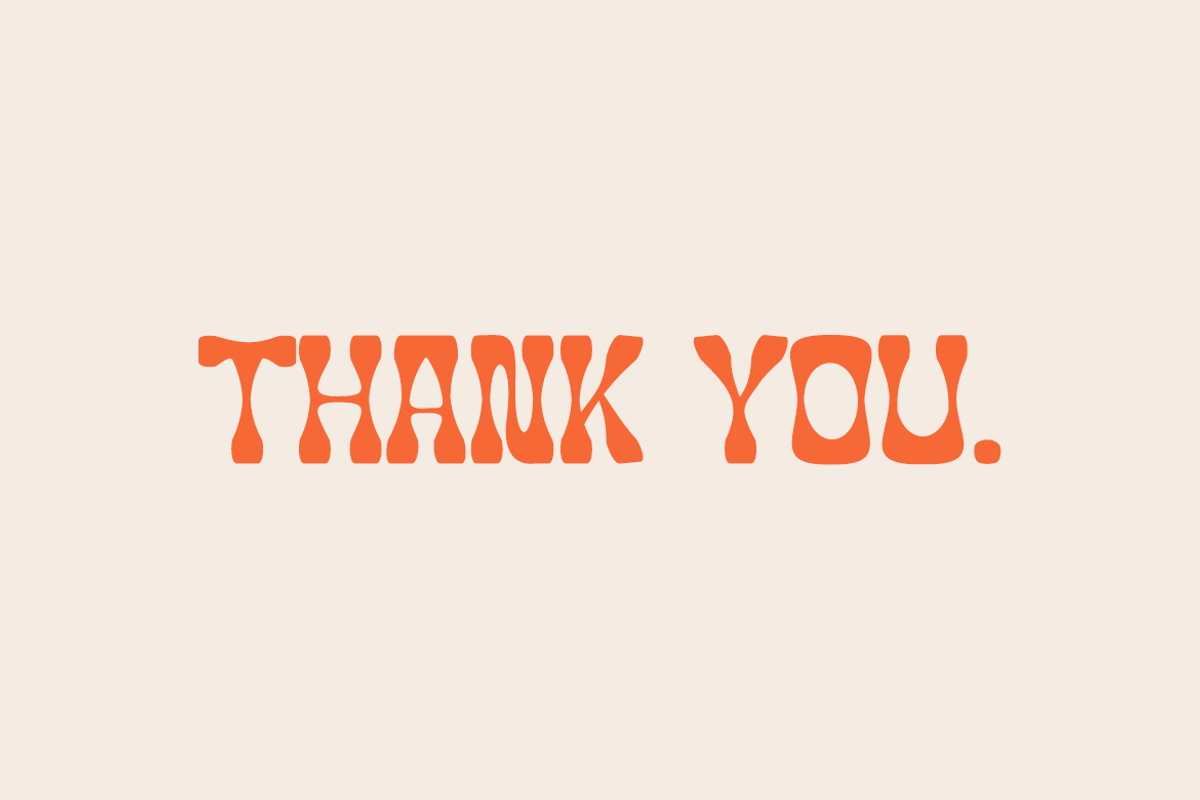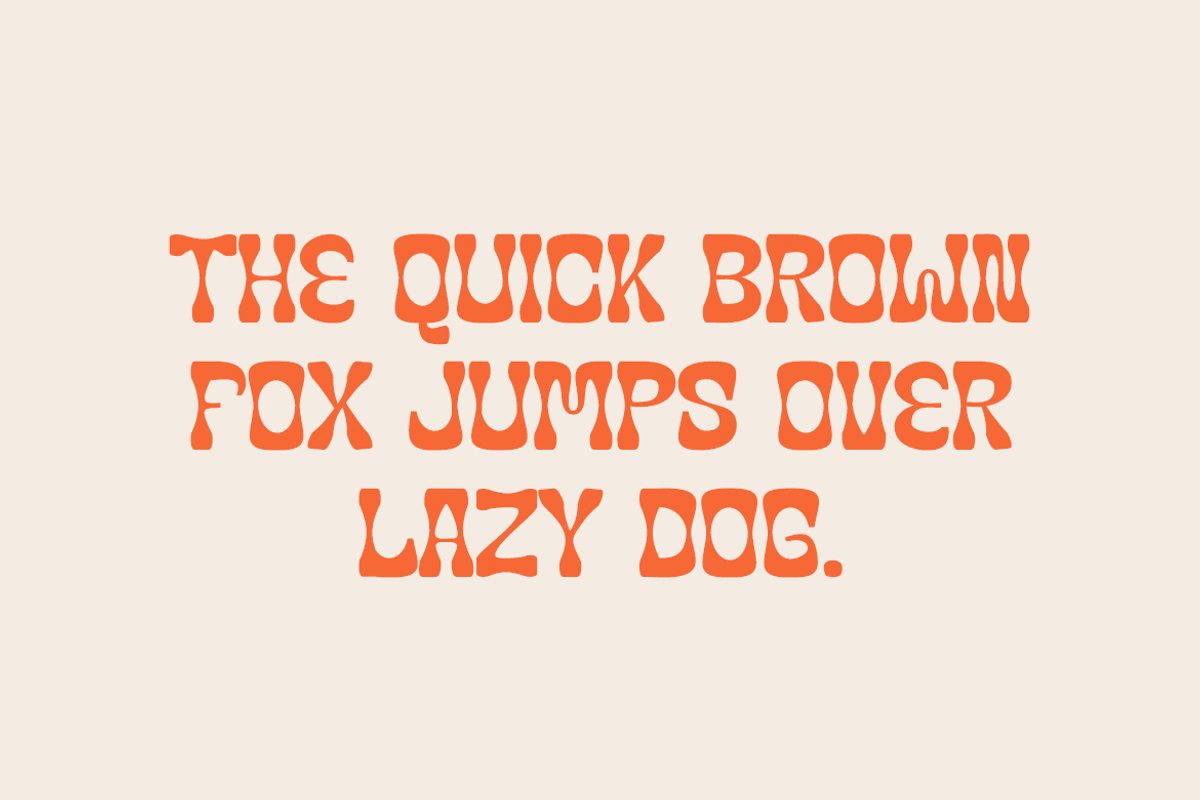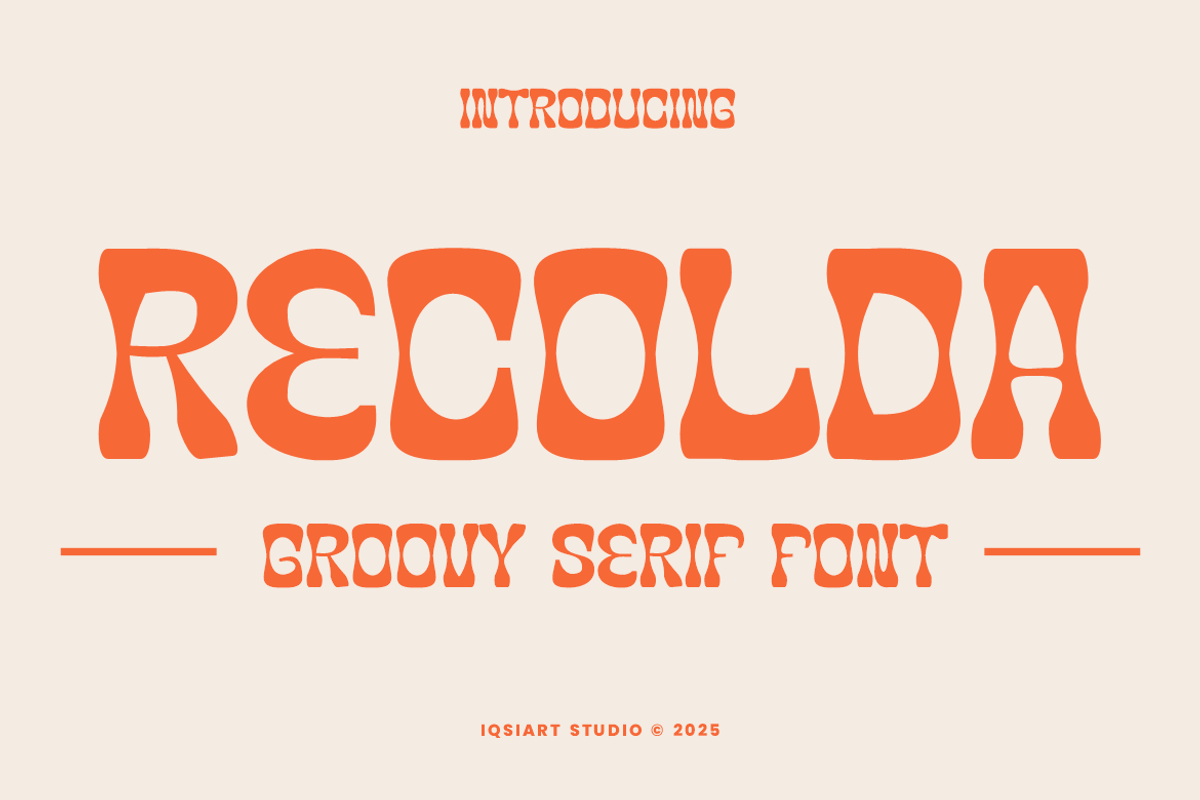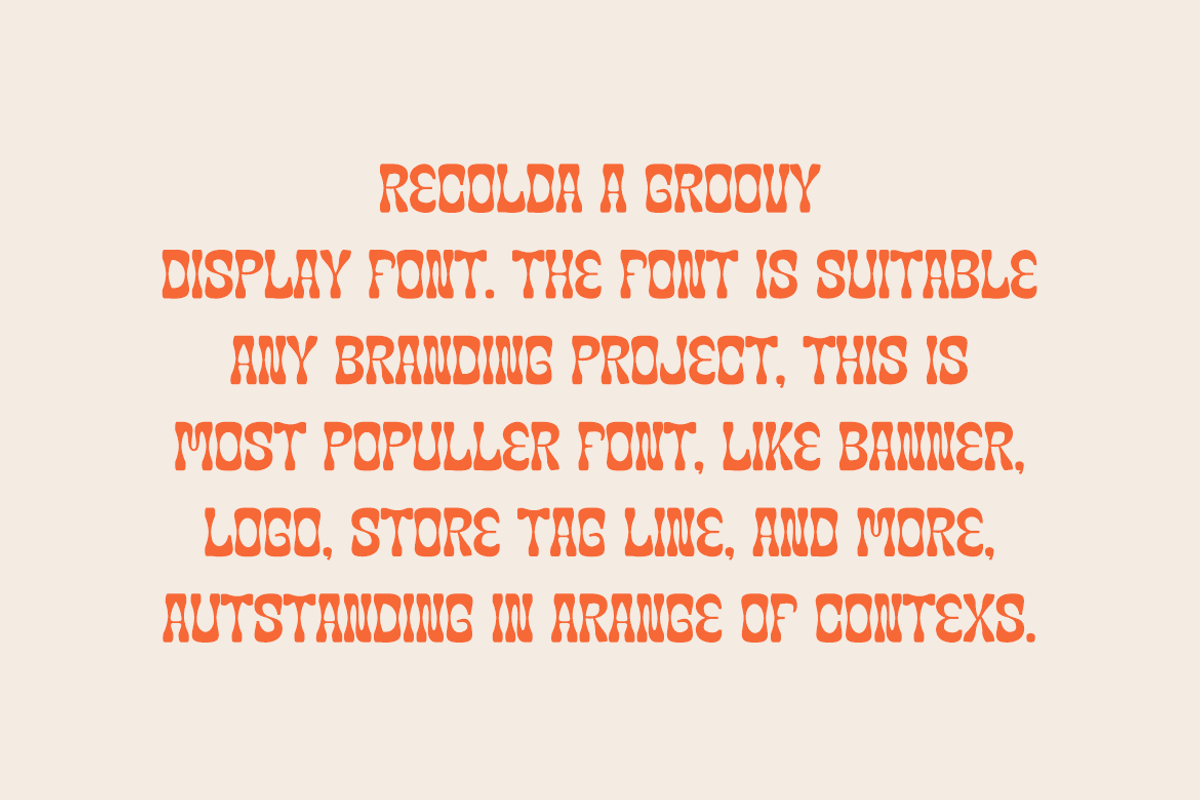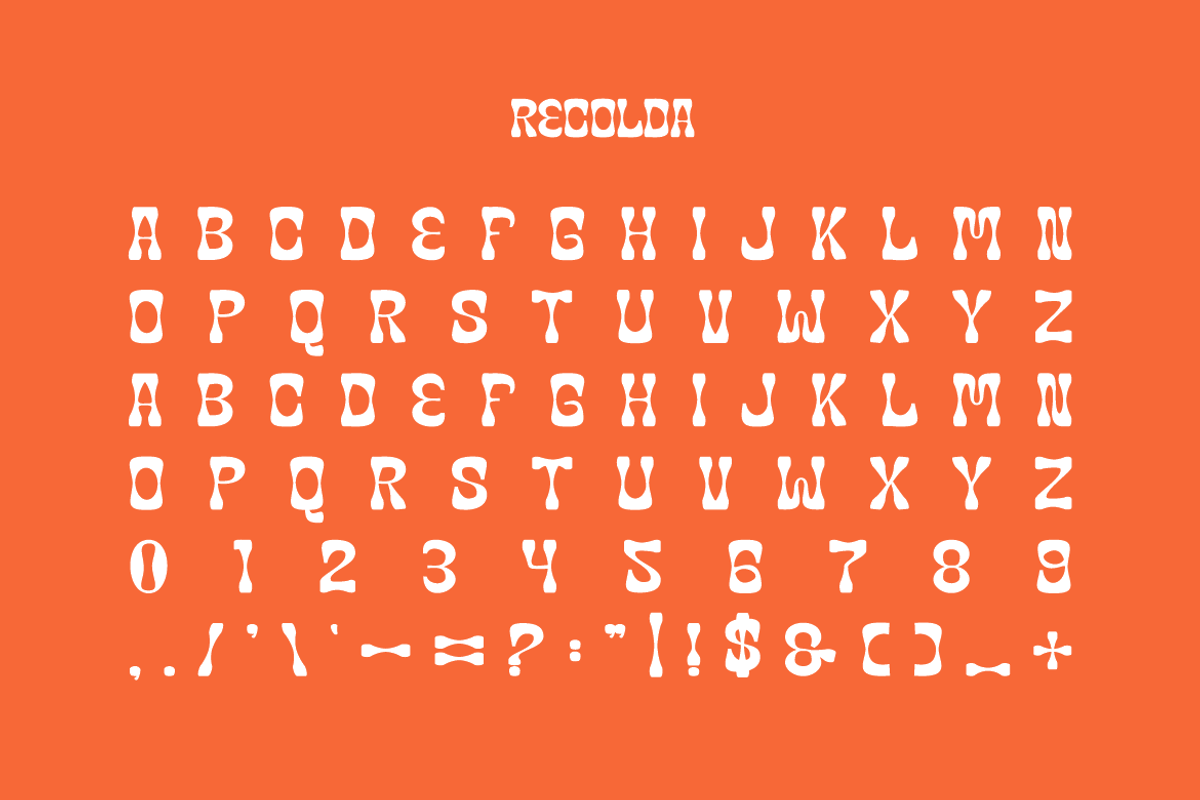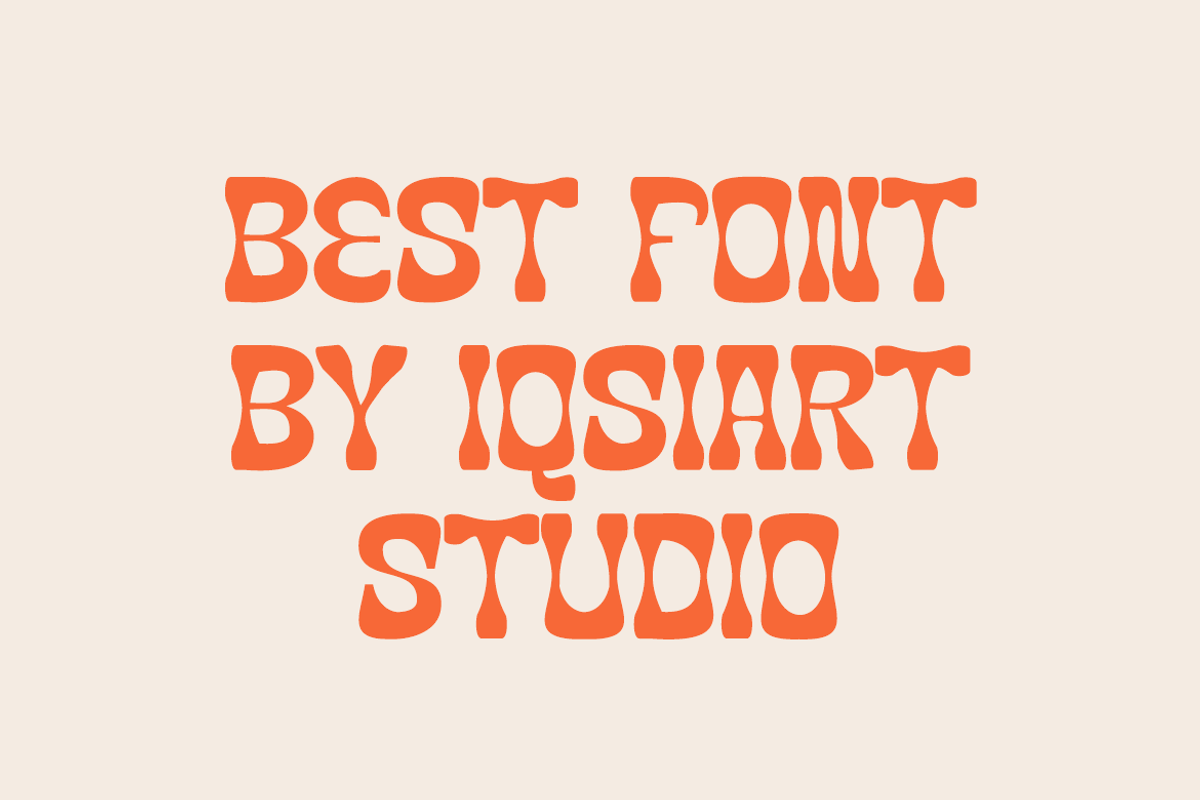
Recolda - Groovy & Retro Font
Recolda Font is a best and authentic display font. This font can be used for your various needs. We provide various themes and font styles. visit our profile to get a wide variety of themes and different font styles you need.